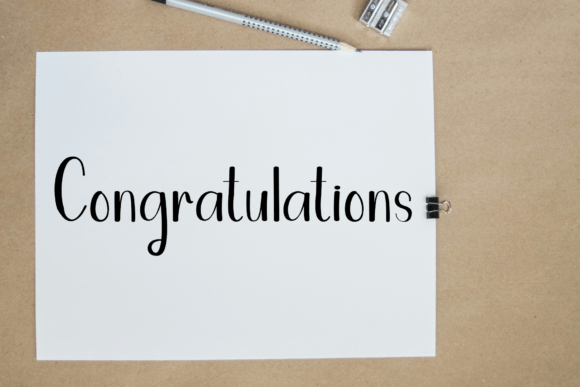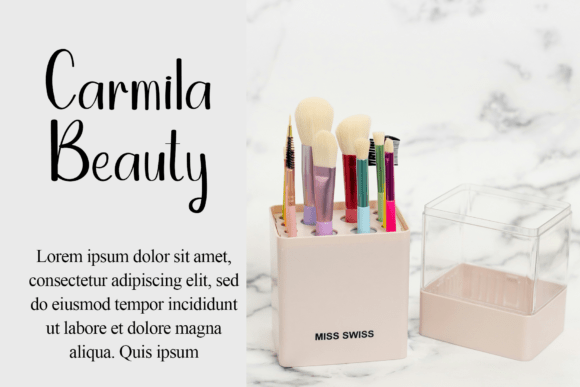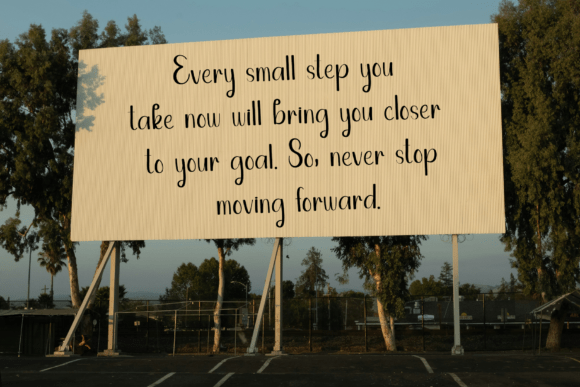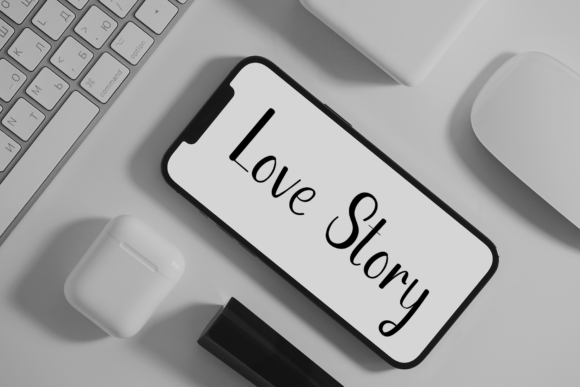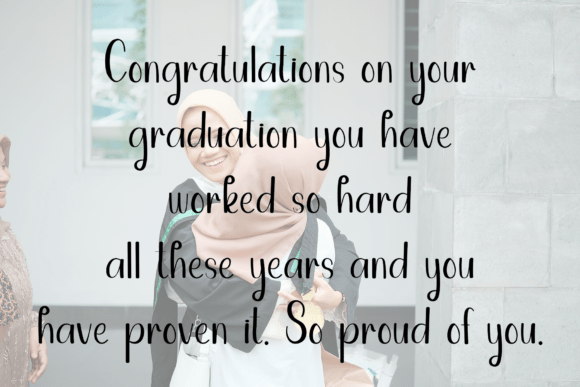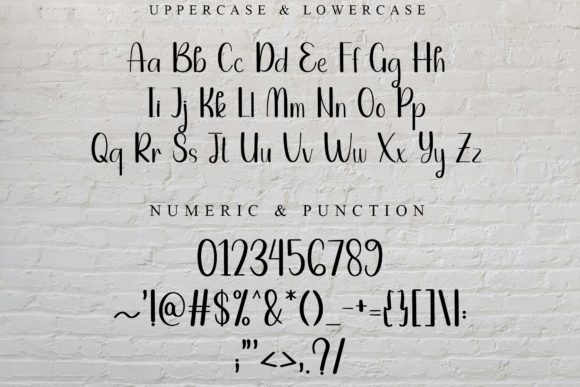
Introducing Happy Graduation Font: The Perfect Choice for Creative Designs
Are you looking for a font that can add a personal touch to your designs, invitations, and social media graphics? Look no further than the Happy Graduation font! This casual and creative font is designed to exude warmth and friendliness, making it perfect for a wide range of projects. In this article, we’ll take a closer look at the Happy Graduation font, its features, and how you can use it to elevate your designs.
The Characteristics of Happy Graduation Font
The Happy Graduation font is characterized by its round, playful strokes that create a relaxed and approachable feel. The font’s charming, hand-drawn aesthetic adds a fun and unique touch to any design, making it perfect for personal projects, invitations, and social media graphics. The font’s casual and creative vibe makes it an excellent choice for designers and crafters who want to add a personal touch to their work.
Key Features of Happy Graduation Font
- Casual and Creative: The Happy Graduation font has a unique, hand-drawn aesthetic that adds a personal touch to any design.
- Warm and Friendly: The font’s round, playful strokes create a relaxed and approachable feel, perfect for personal projects and social media graphics.
- Multipurpose: The Happy Graduation font can be used for a wide range of projects, including personal projects, invitations, social media graphics, and more.
Benefits of Using Happy Graduation Font
Using the Happy Graduation font in your designs offers several benefits, including:
- Unique and Creative: The font’s hand-drawn aesthetic adds a unique and creative touch to your designs.
- Time-Saving: The font’s casual and creative vibe saves you time and effort in designing from scratch.
- Versatile: The font can be used for a wide range of projects, making it a valuable addition to your font library.
- Easy to Read: The font’s round, playful strokes make it easy to read, even at small sizes.
Tips and Tricks for Using Happy Graduation Font
Here are some tips and tricks for using the Happy Graduation font in your designs:
- Pair with Other Fonts: Pair the Happy Graduation font with other fonts to create a unique and creative contrast.
- Use for Headings and Titles: Use the Happy Graduation font for headings and titles to add a personal touch to your designs.
- Add Texture and Patterns: Add texture and patterns to your design to give it a more creative and playful look.
In conclusion, the Happy Graduation font is a versatile and creative font that can add a personal touch to your designs, invitations, and social media graphics. Its casual and creative vibe, combined with its standard PUA Encoded glyphs, makes it an excellent choice for designers and crafters. With its ease of use and flexibility, the Happy Graduation font is a valuable addition to any font library.